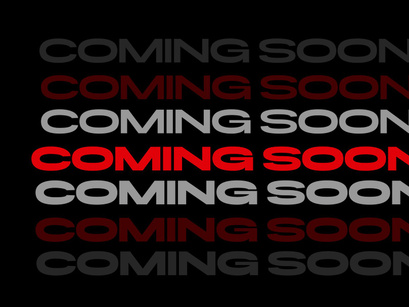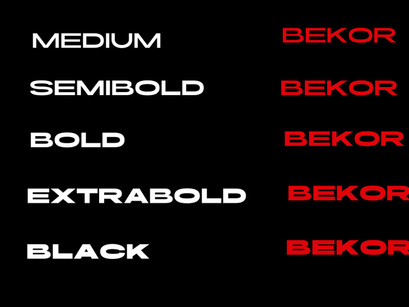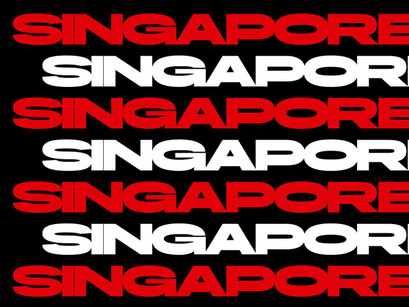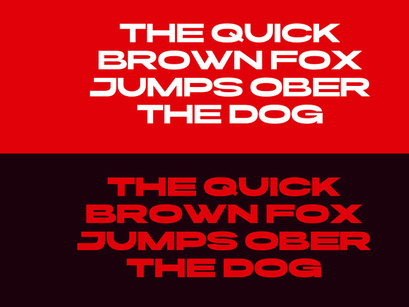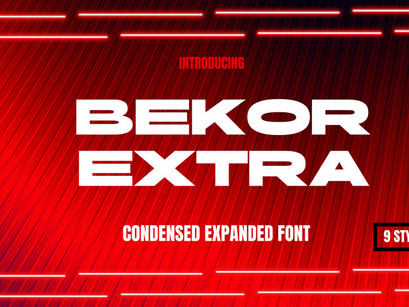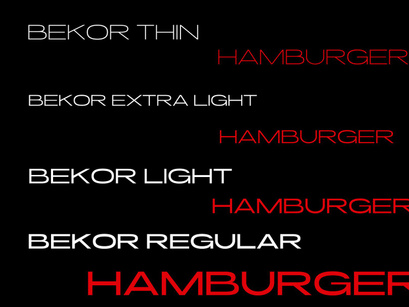
Bekor is a cutting-edge expanded font family that seamlessly blends futuristic aesthetics with the raw edge of brutalism. With weights ranging from elegant Thin to commanding Black, BeKor offers unparalleled versatility for all your design needs.
Whether you’re crafting bold branding, standout logos, dynamic social media visuals, or eye-catching display designs, BeKor delivers a modern, impactful look that grabs attention and leaves a lasting impression